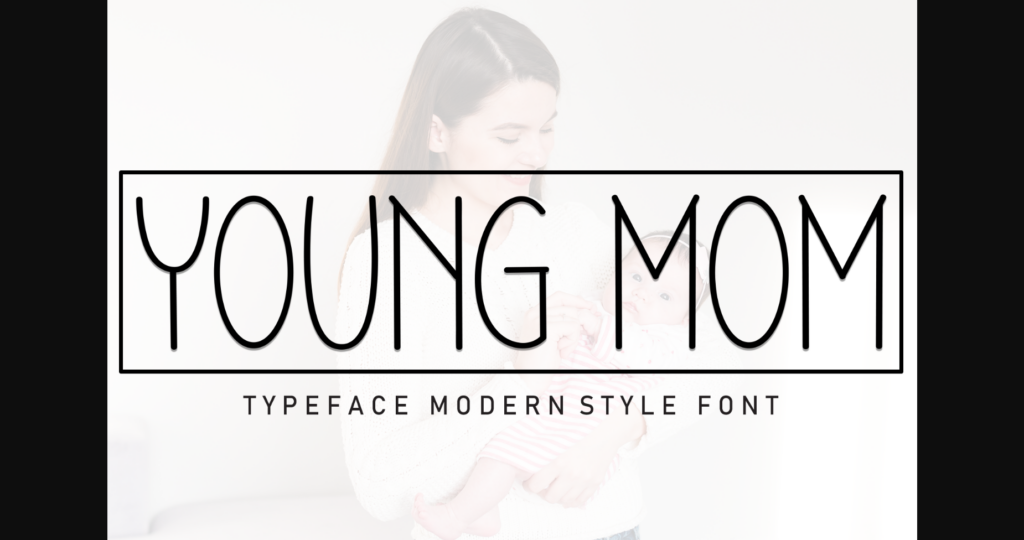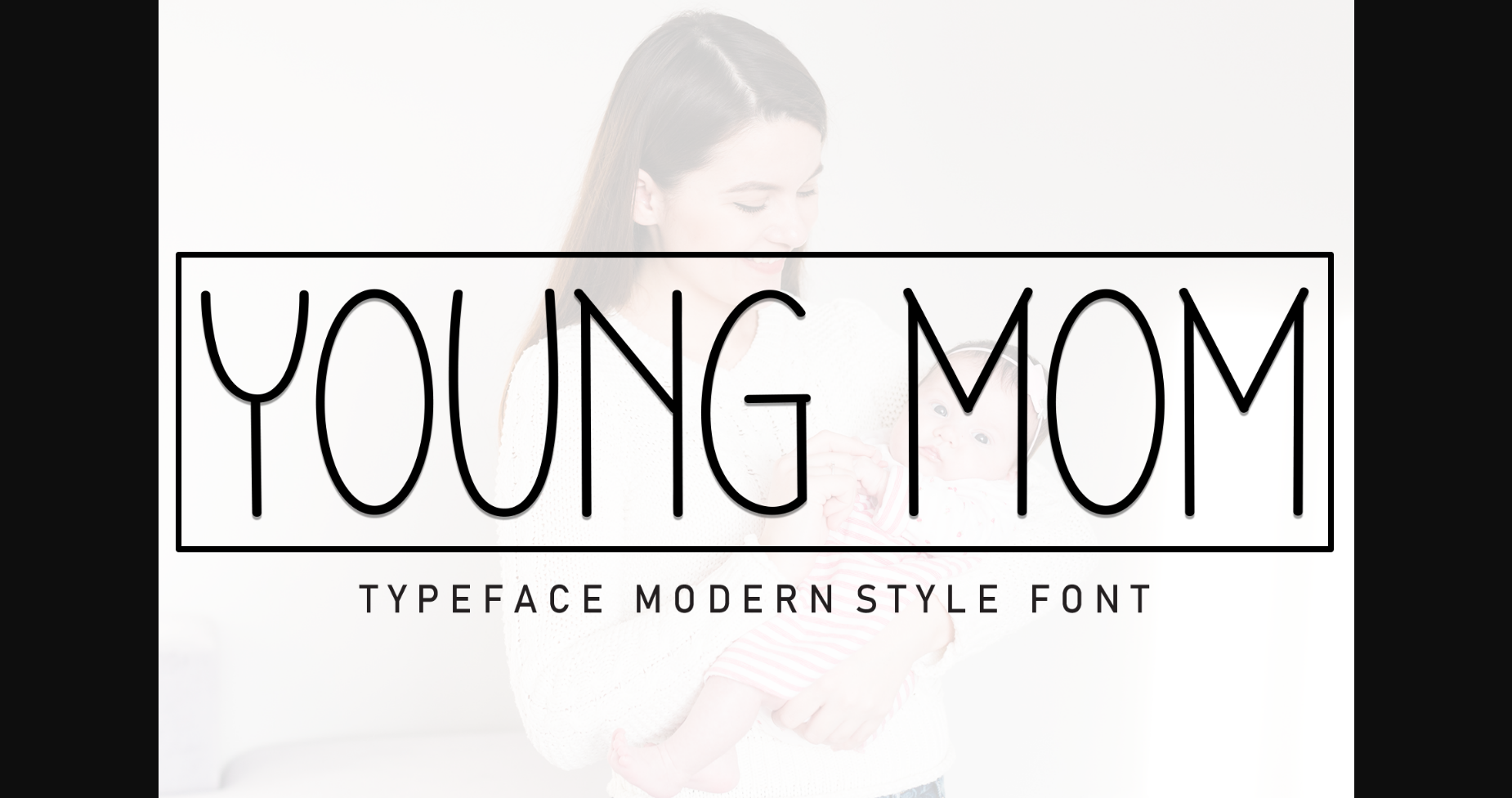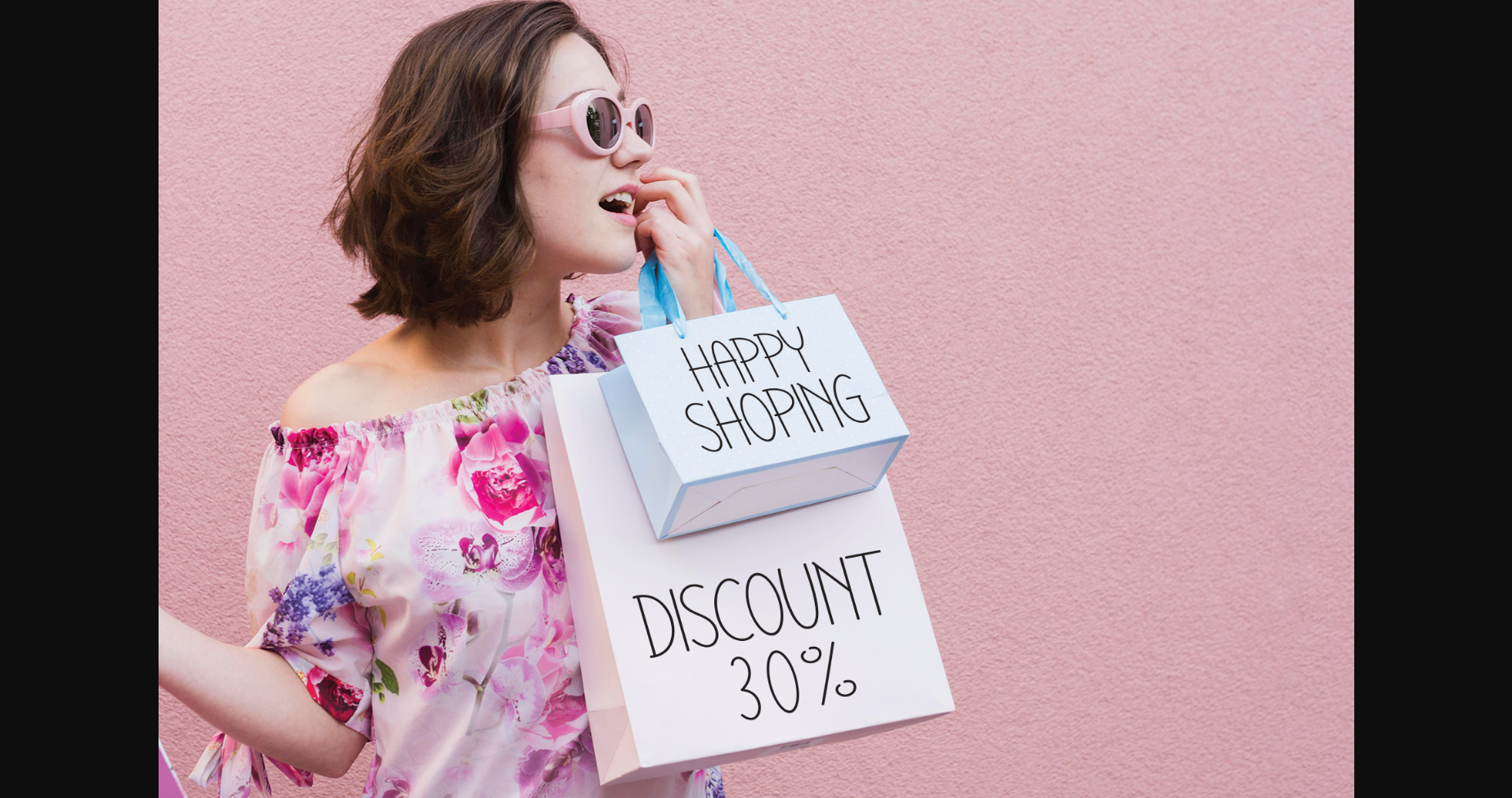
About Young Mom Font
Young Mom is a sweet and friendly sans-serif font. Fresh and casual, this font is ideal for writing wedding invitations, cards, or any other design that might need a lovely touch.